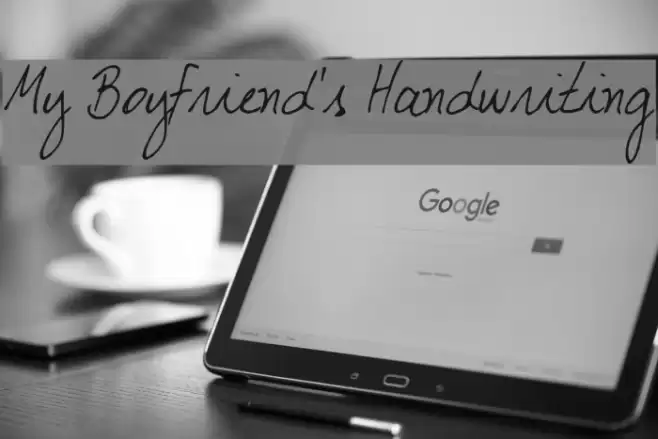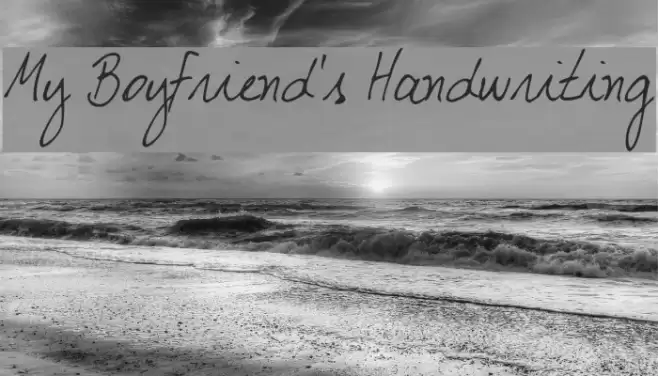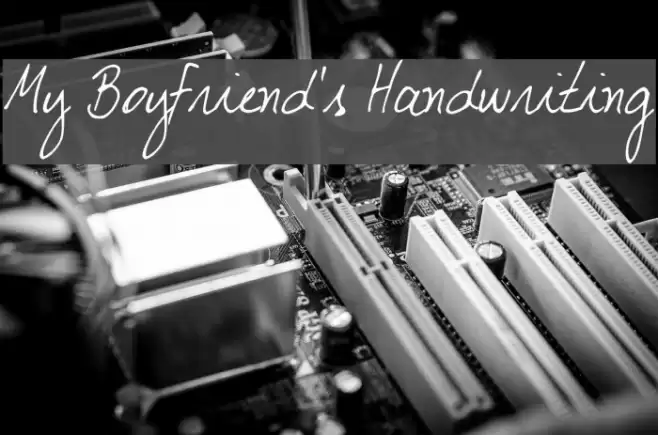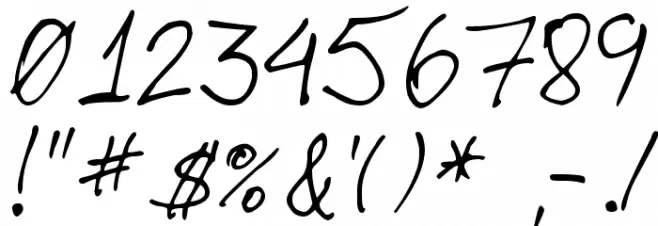
My Boyfriend's Handwriting Font
My Boyfriend's Handwriting Description
This font exudes a casual and personal touch, reminiscent of authentic handwriting. The characters are fluid and slightly slanted, giving a natural and spontaneous feel. The uppercase letters maintain a consistent height, while the lowercase letters vary in size, adding to the informal aesthetic. The numbers are clear and legible, matching the style of the letters. Special characters are integrated seamlessly, maintaining the handwritten appearance. The overall look is approachable and friendly, making it suitable for projects that require a personal or informal tone.
A casual, handwritten-style font with fluid, slightly slanted characters from Uncategorized fonts.
- Proposed Projects: Ideal for personal notes, invitations, greeting cards, and informal branding.
- Overall Style: Casual
- Use Case: Logos, Invitations, Personal notes